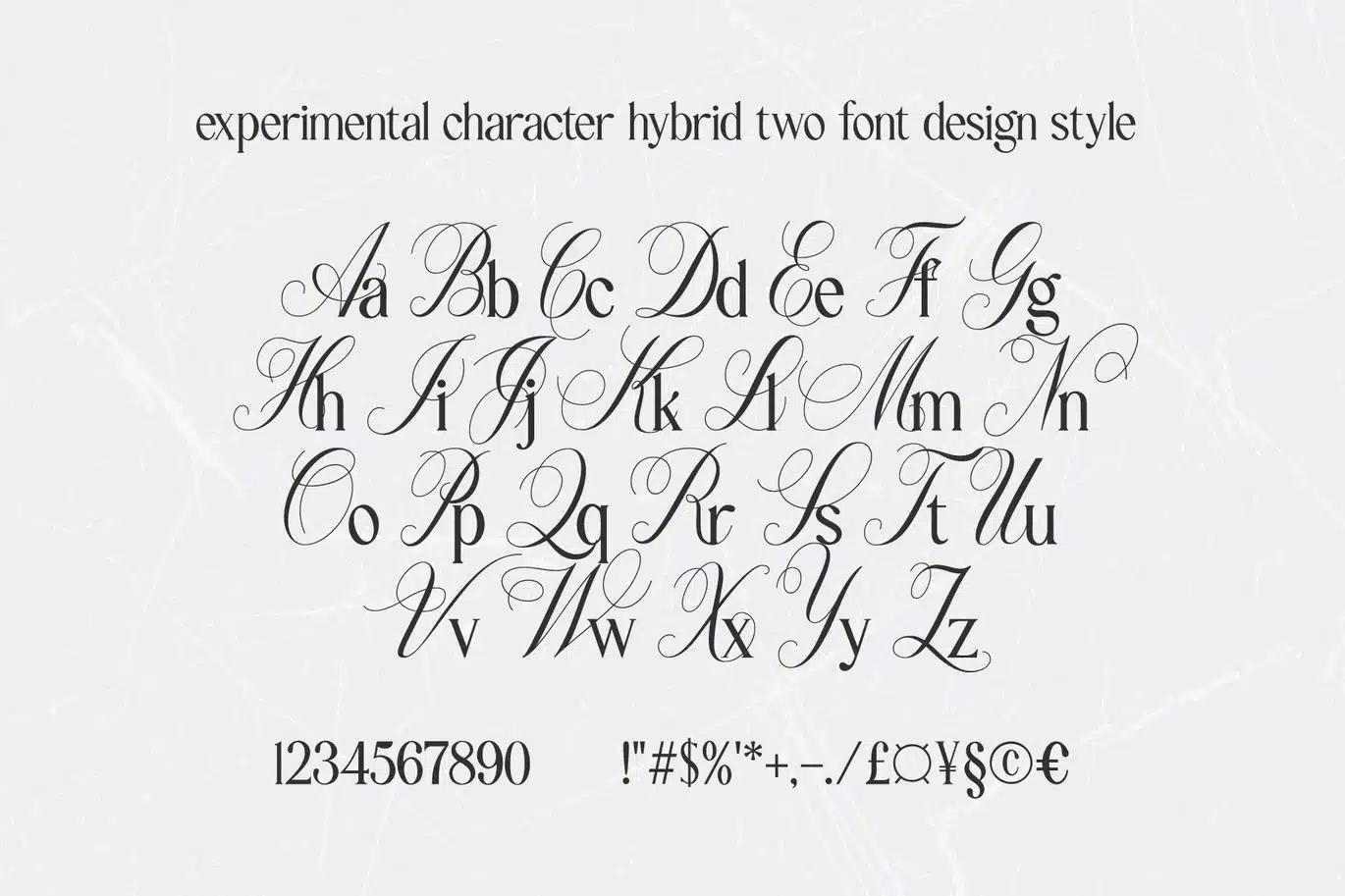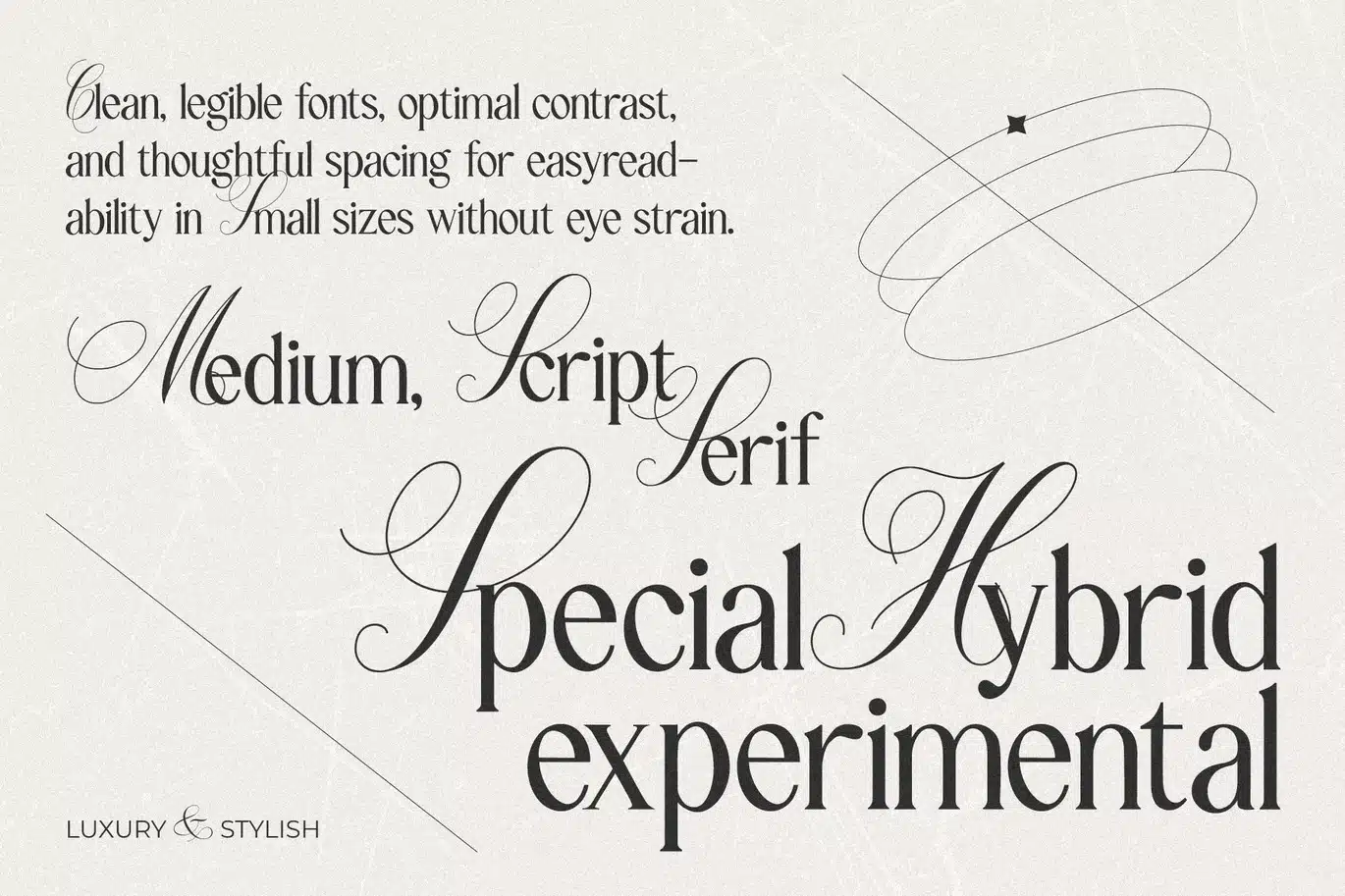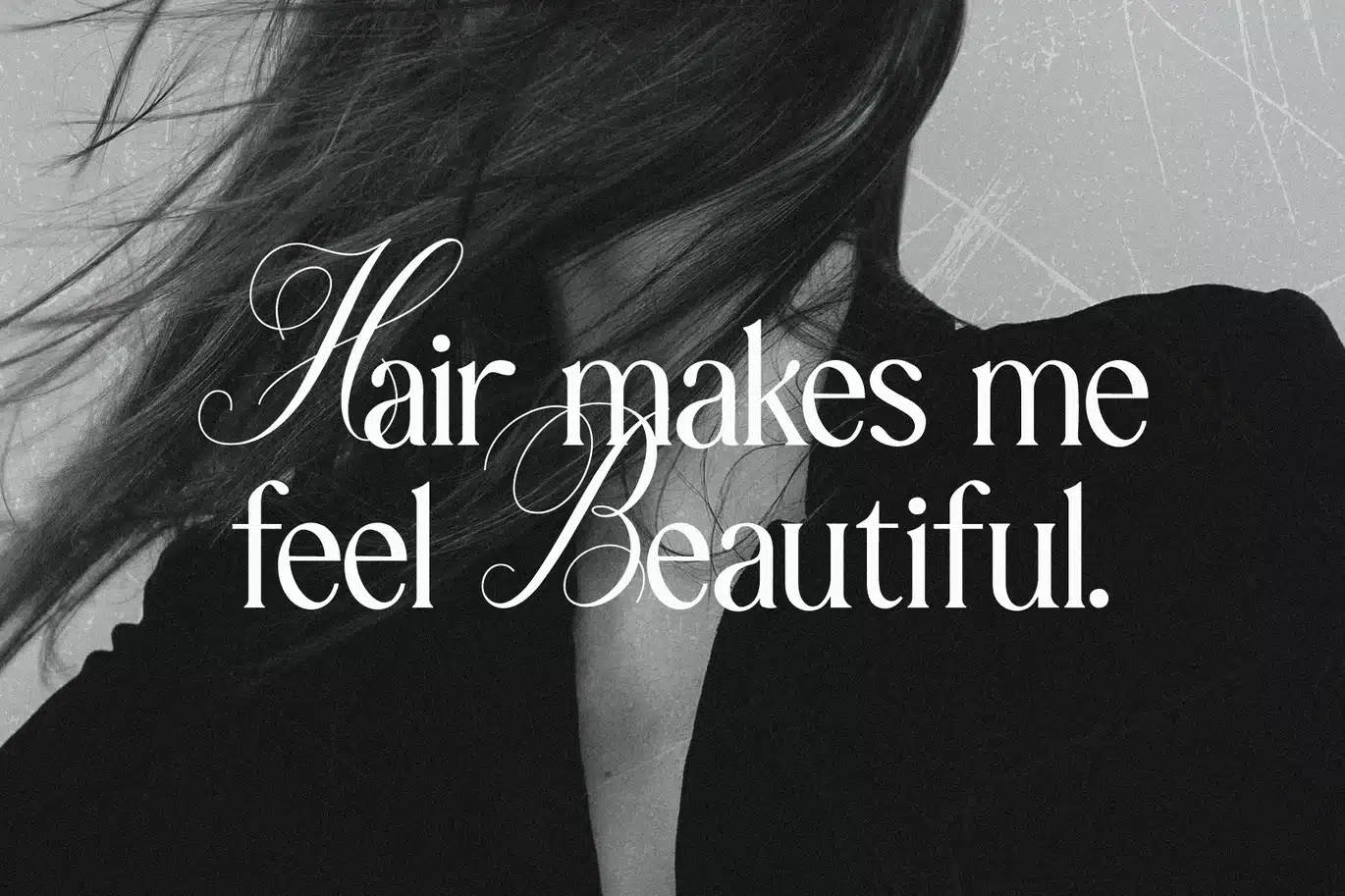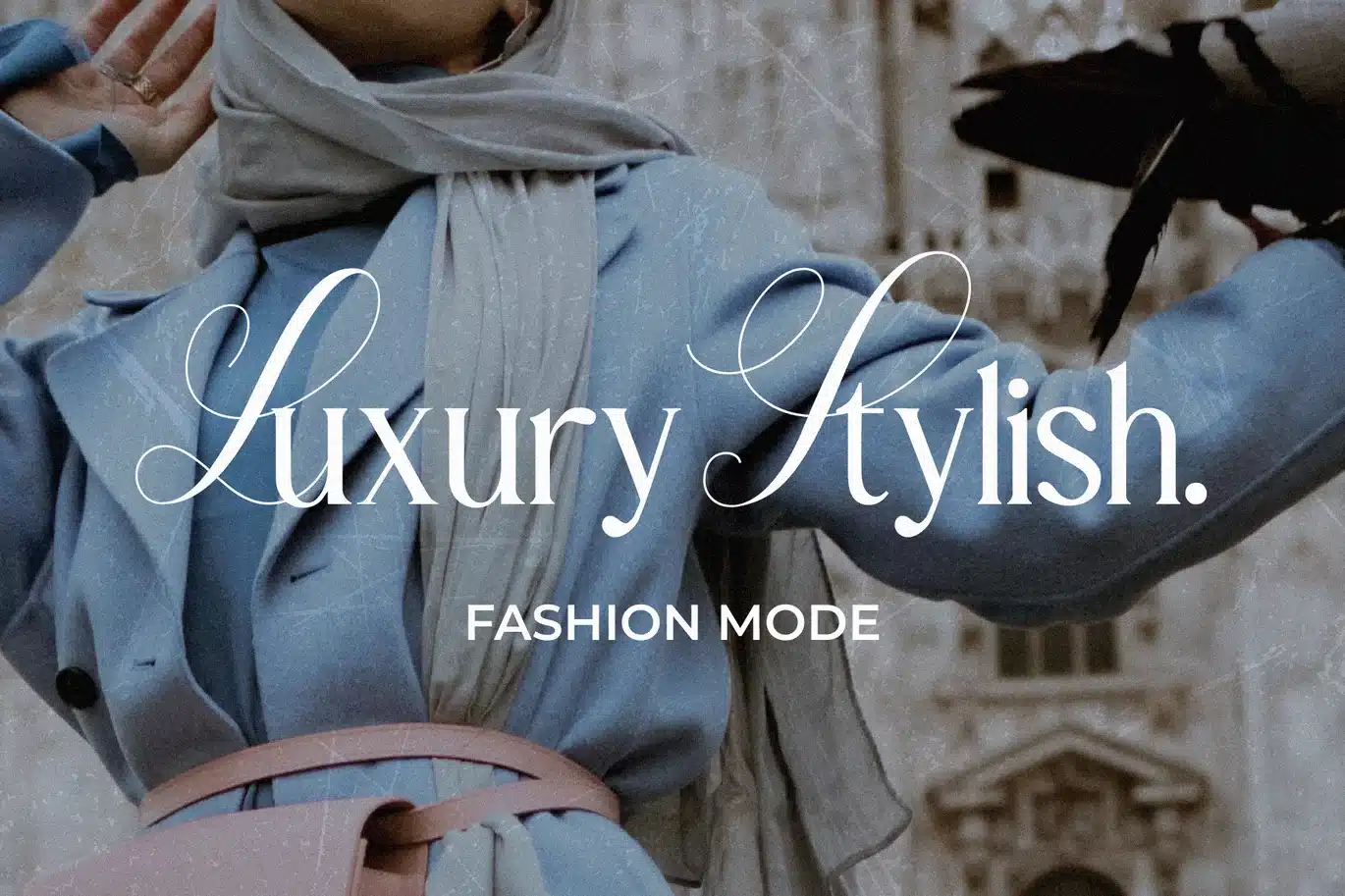
Calle Austin – Experimental Font
FEATURES:
- **Uppercase : Script** - Uppercase letters are meticulously crafted in a beautiful and impactful script style.
- **Lowercase : Sans Serif** - Lowercase letters showcase a serif style, bringing a formal and tidy aesthetic.
- **Punctuation and Marks** - A variety of punctuation and marks are available, providing flexibility in design composition.
- **Symbols** - The font comes equipped with a range of symbols to support diverse design elements.
- **Multilingual Support:** - Calle Austin includes multilingual support, making it versatile for designs in various languages.